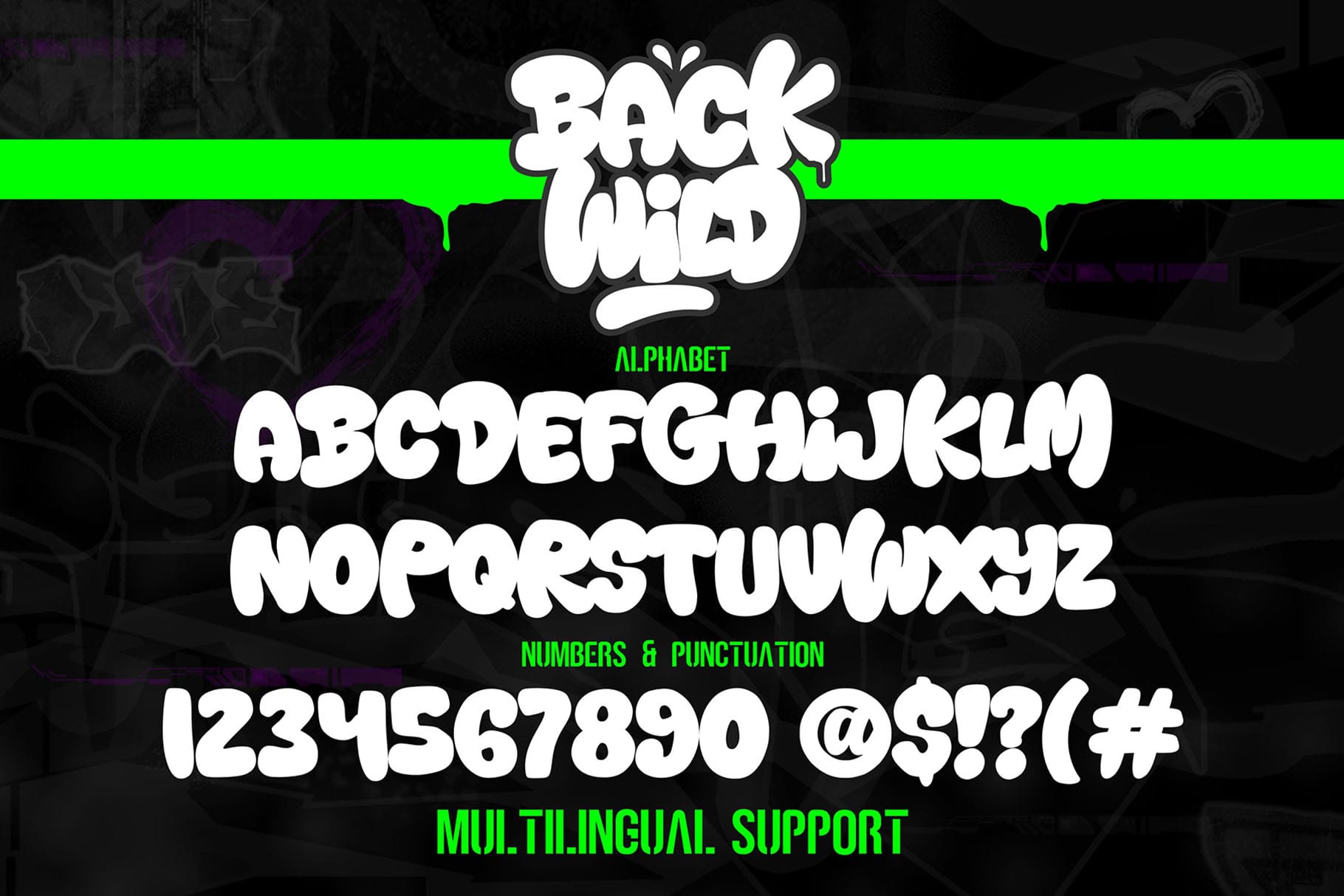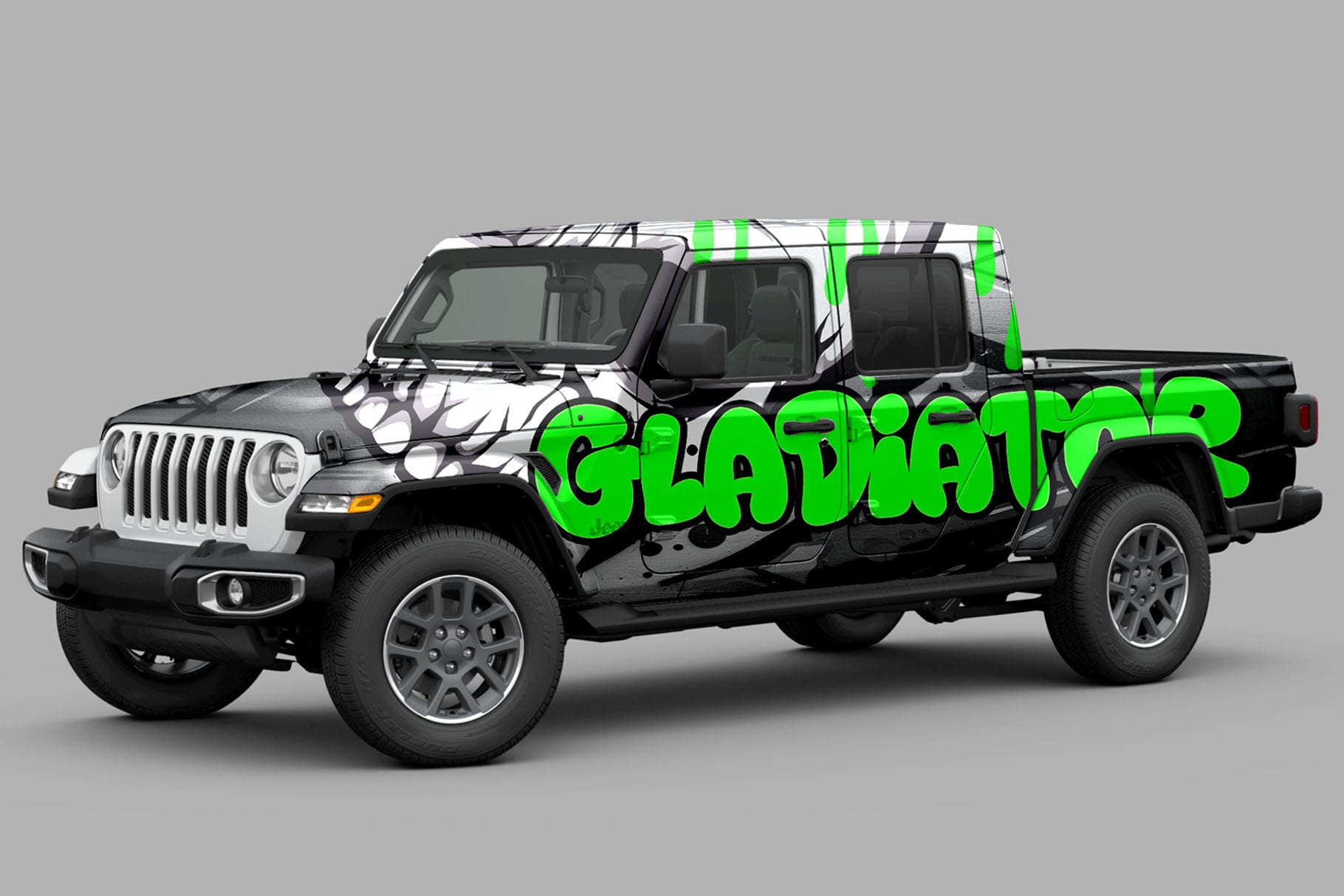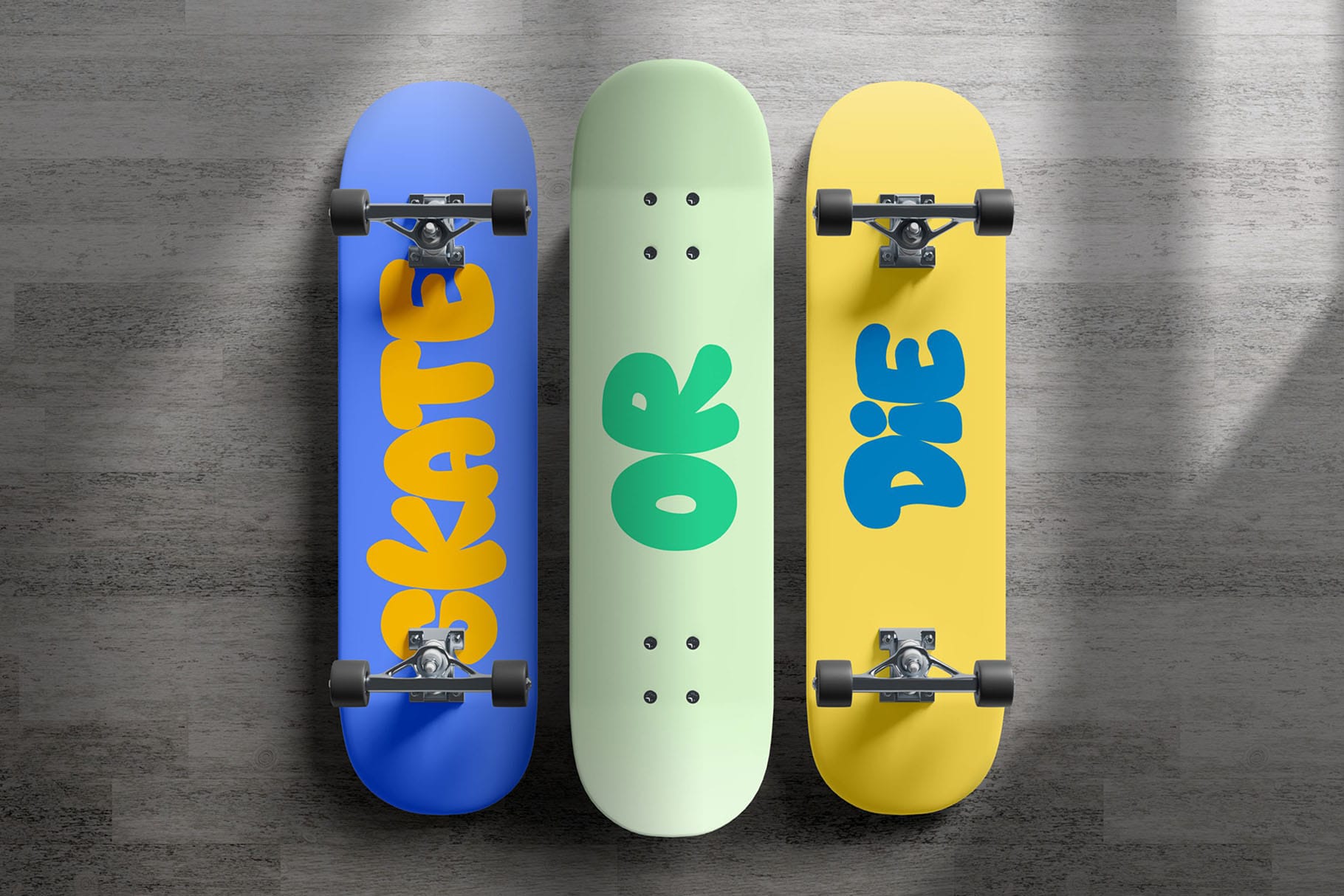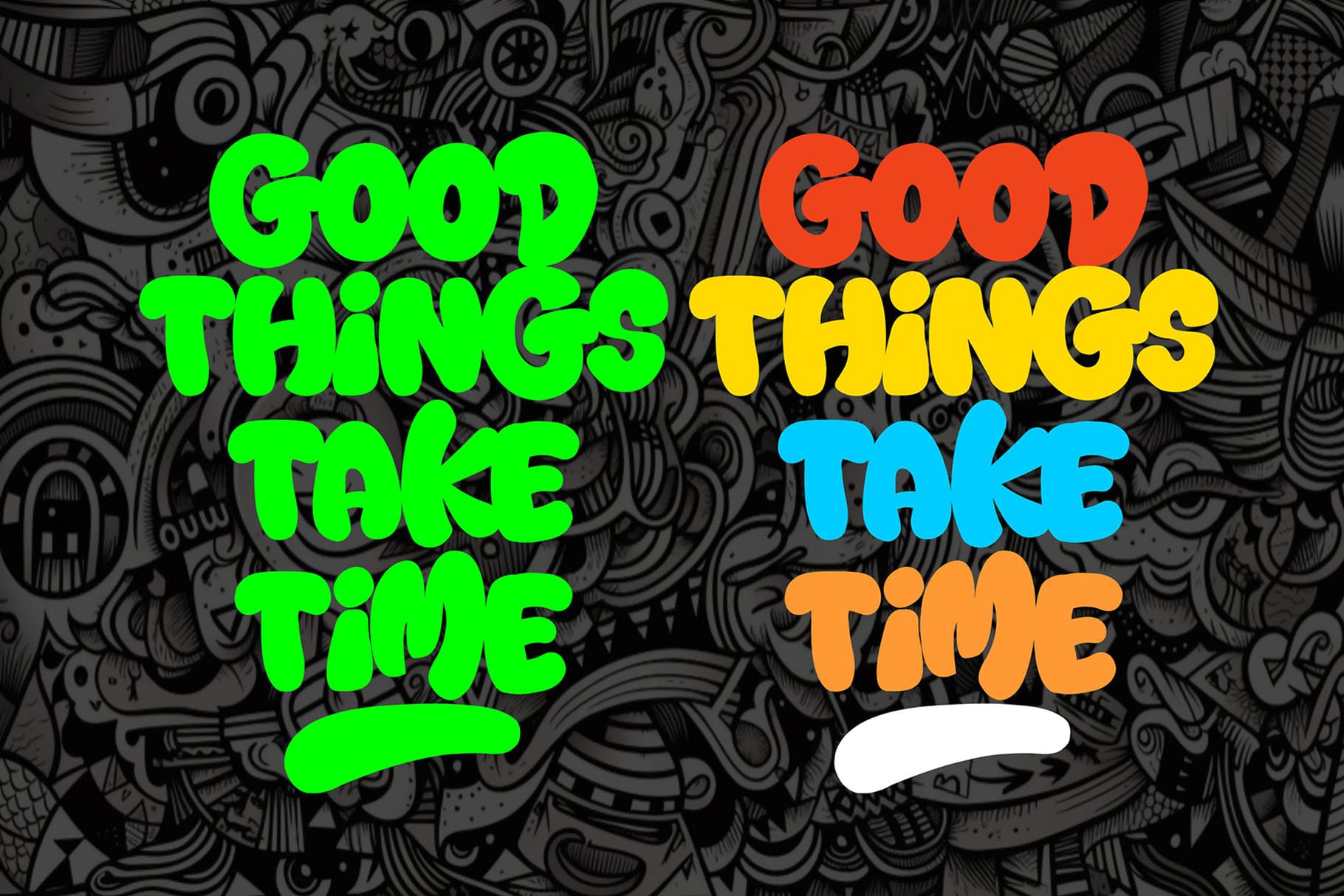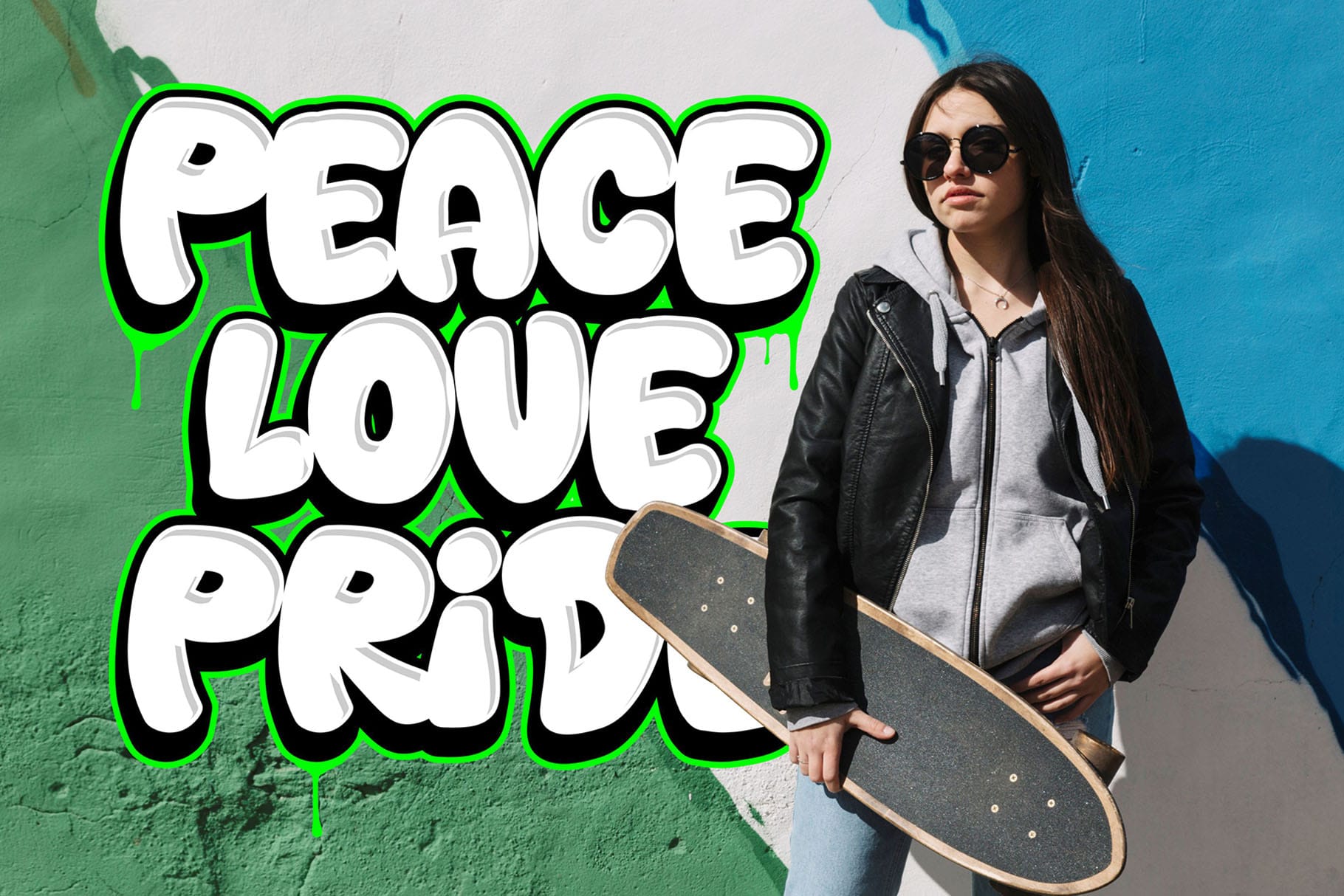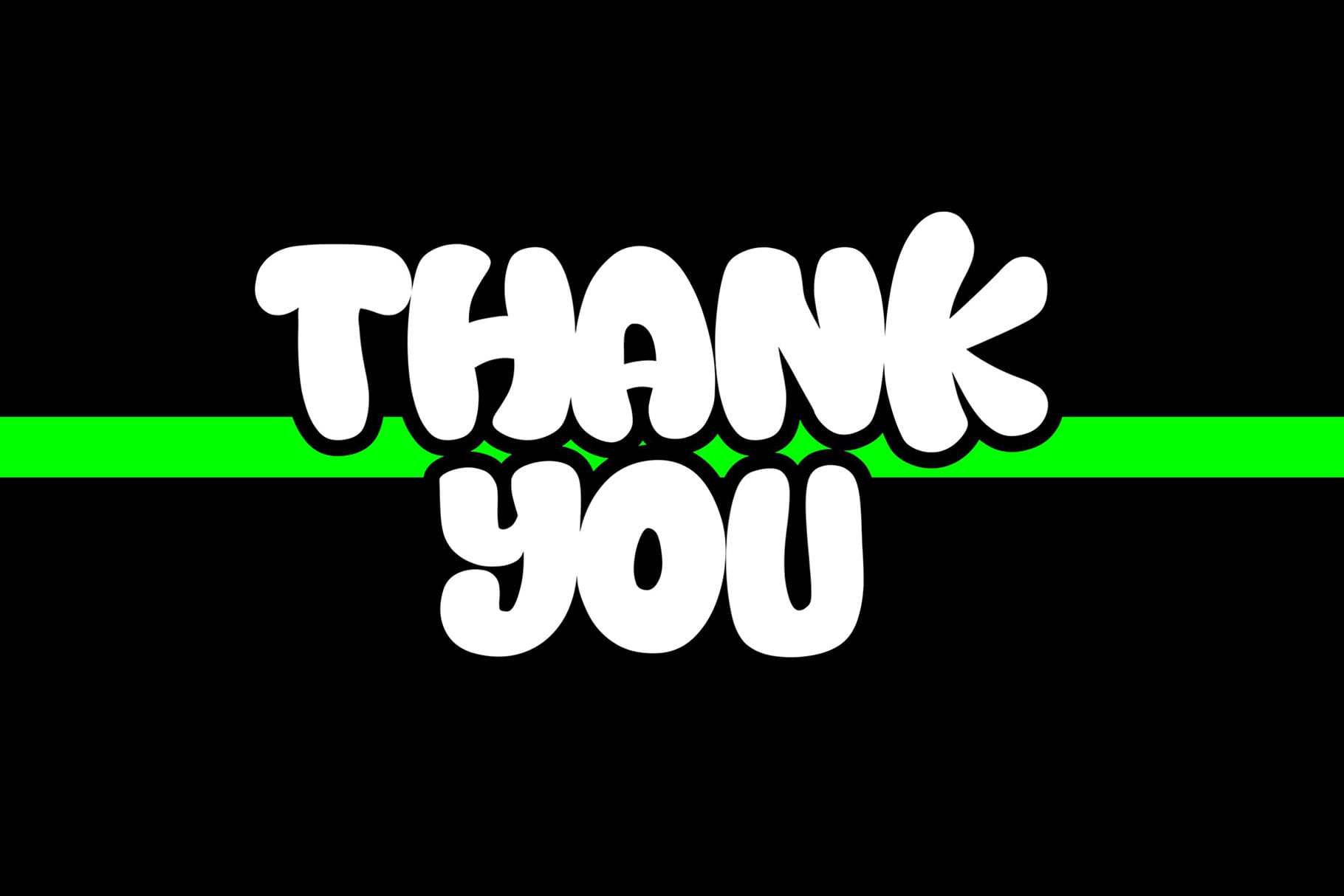
Back Wild Graffiti Font for Fun Street-Style Design
Back Wild graffiti font is made for designers who want their typography to feel bold, expressive, and full of movement. With a fun graffiti-inspired personality, this font brings the attitude of street lettering into practical digital design work.
It is a strong choice for creative projects that need energy at first glance. Think streetwear graphics, music posters, youth branding, sticker designs, social media artwork, product labels, bold packaging, and statement headlines. Back Wild gives your words a lively visual voice without making the design feel stiff or overly polished.
This font package includes two font styles: Back Wild and Back Wild Swash. The main font gives you the bold graffiti look, while the swash style gives you an extra decorative option for layouts that need more motion and attitude.
Back Wild has a playful urban personality. It feels casual, expressive, and energetic, making it ideal for designs that want to look creative, rebellious, youthful, or street-inspired.
The graffiti direction gives the font a hand-drawn spirit. It works well when you want typography to become the main visual element instead of sitting quietly in the background. Use it for large headlines, short phrases, logo marks, apparel graphics, skateboard-style visuals, event posters, or digital artwork with a fun urban edge.
The swash version adds a more expressive layer. You can use it to create dramatic wordmarks, highlight specific letters, or build typography compositions with extra flow. This makes Back Wild useful for designers who want more than a simple display font but still need files that are practical to install and use.
Best Use Cases
Back Wild graffiti font is especially useful for projects where the text needs to stand out immediately. It can help a brand, poster, or product graphic feel more alive and memorable.
Use it for streetwear logos, clothing graphics, cap designs, tote bags, stickers, music artwork, band merchandise, skateboard designs, youth campaign visuals, gaming-style graphics, creative posters, event flyers, and bold social media content.
It also works well for digital product sellers and crafters who create printable posters, quote graphics, SVG-style artwork, sublimation designs, and themed merchandise. For packaging designers, Back Wild can bring a playful urban touch to labels, snack packaging, youth products, and limited-edition campaign visuals.
• Fun graffiti-inspired display font
• Includes Back Wild and Back Wild Swash
Designers love fonts that help them move from concept to layout quickly. Back Wild gives you a strong visual direction from the start. Its graffiti style makes it easy to build designs with personality, while the included swash style gives you more room to experiment with expressive compositions.
For brand designers, Back Wild can help create logos and campaign graphics with a bold, youthful tone. For apparel designers, it works well for t-shirts, hoodies, caps, patches, and merchandise that need street-style energy. For content creators, it can turn simple phrases into scroll-stopping graphics for social media.
Back Wild graffiti font is a strong choice when your design needs movement, attitude, and a fun street-art voice. Use it to create bold logos, standout posters, expressive apparel graphics, energetic stickers, and creative branding that feels youthful without losing clarity.